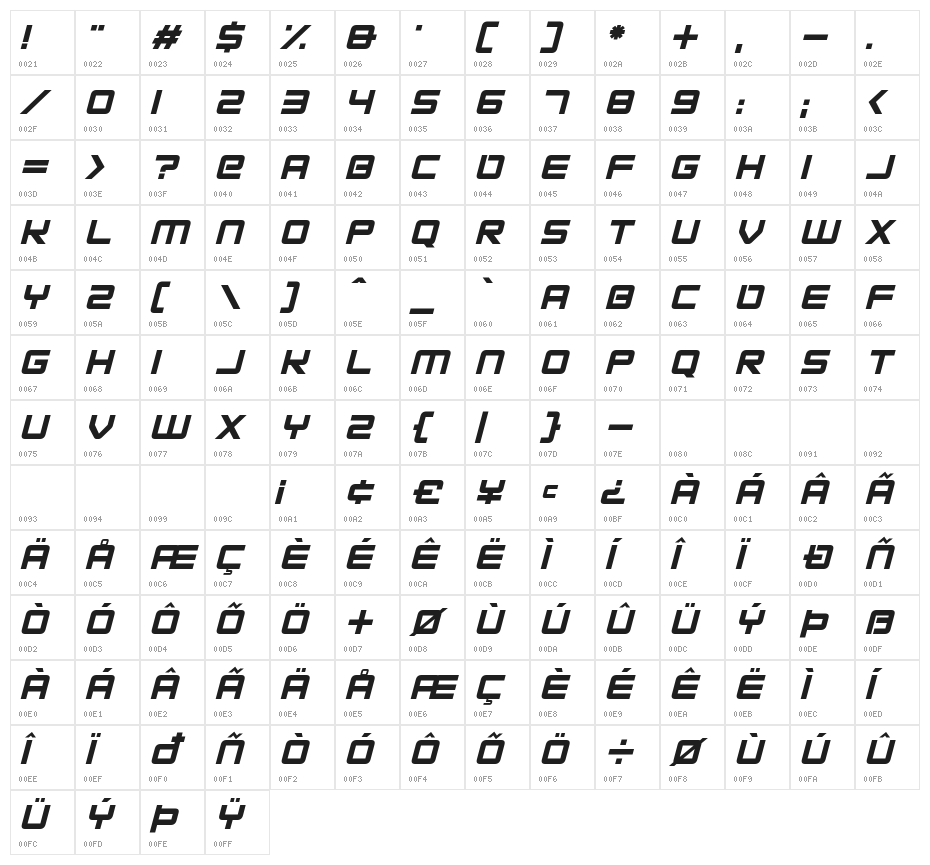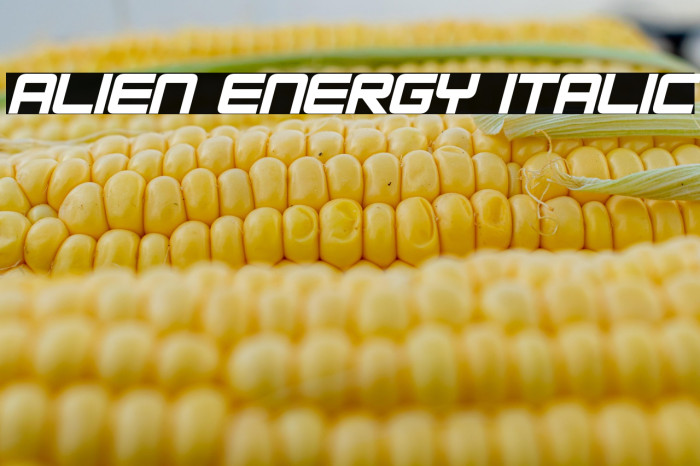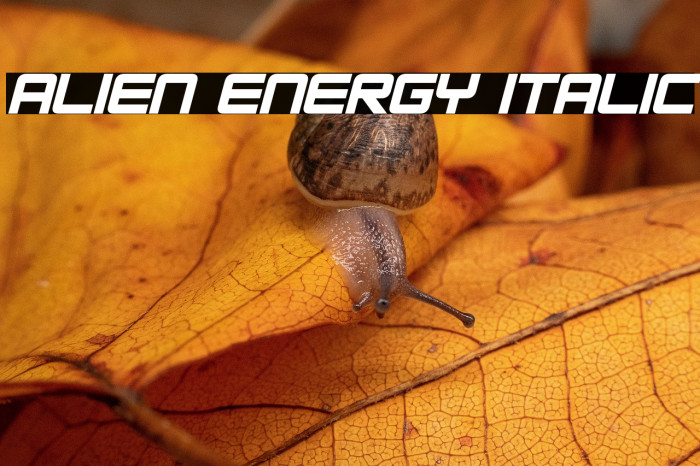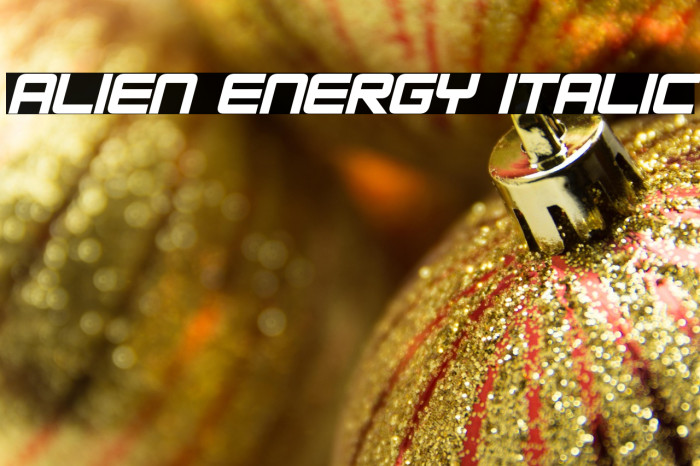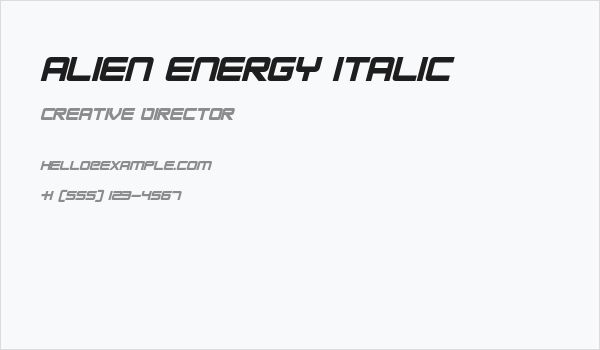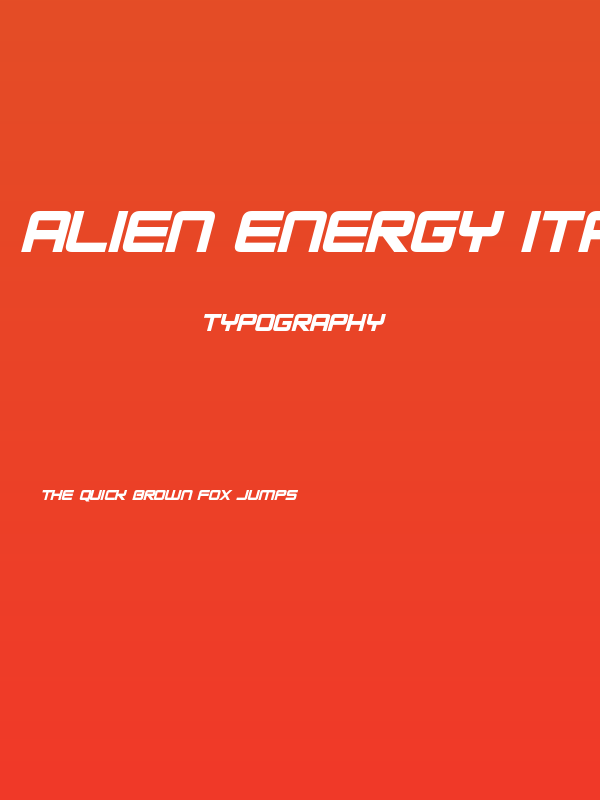
Alien Energy Italic Font
Alien Energy Italic Description
This font features a futuristic and dynamic design with a distinct italic slant, giving it a sense of motion and energy. The characters are bold and angular, with a geometric structure that emphasizes sharp edges and clean lines. The uppercase and lowercase letters maintain a consistent style, while the numerals and special characters complement the overall aesthetic. The font's modern and sleek appearance makes it ideal for projects that require a cutting-edge and technological feel.
| Proposed Projects | Ideal for sci-fi themed designs, tech branding, video game titles, and futuristic posters. |